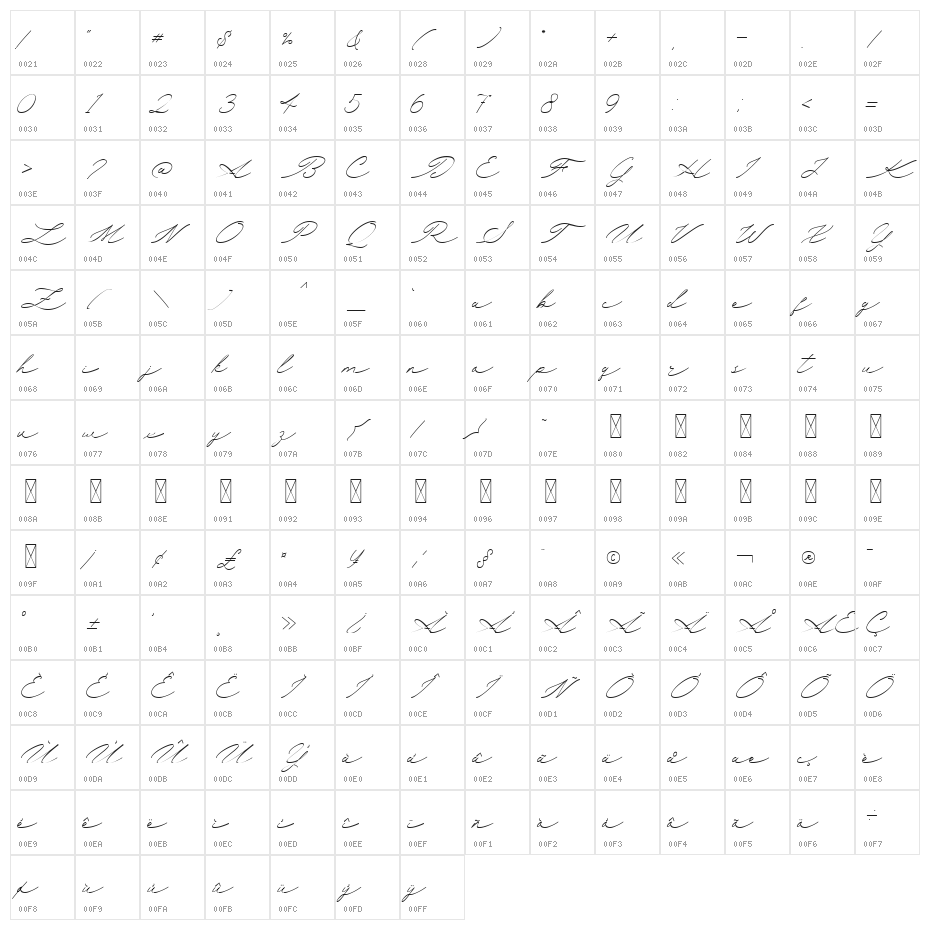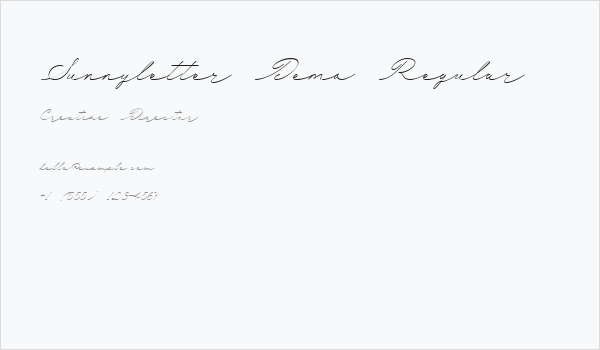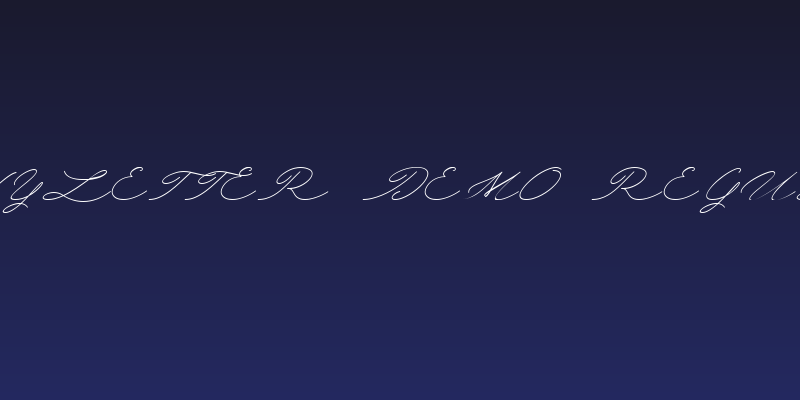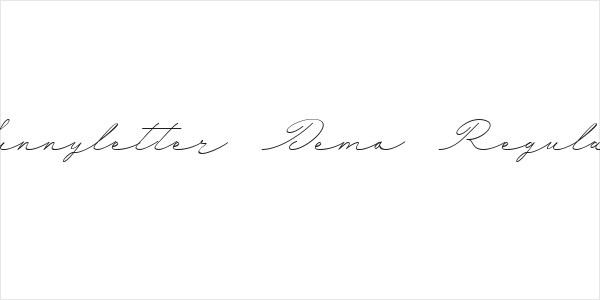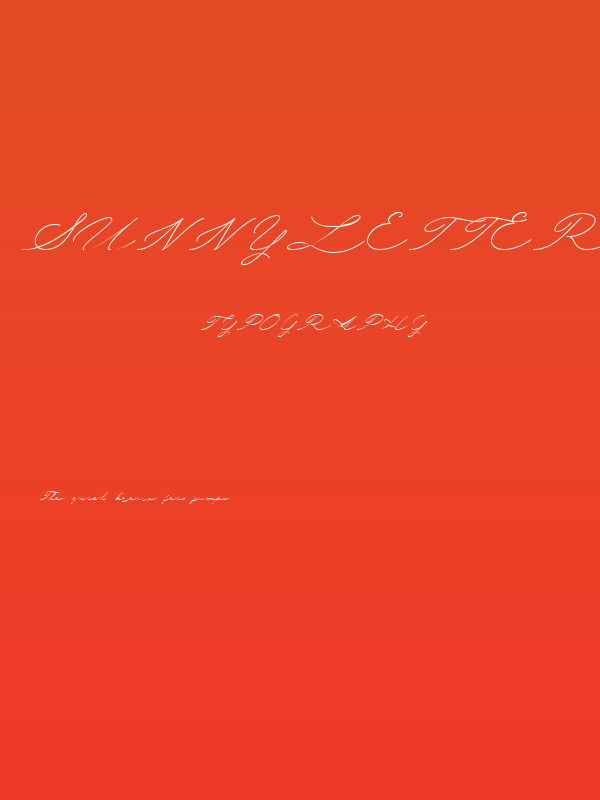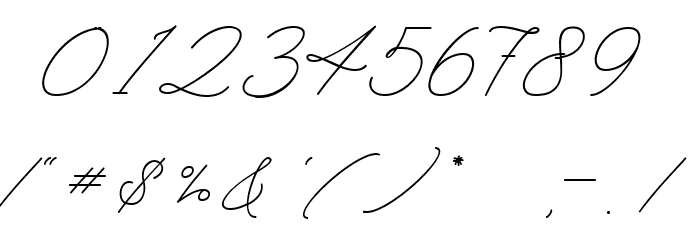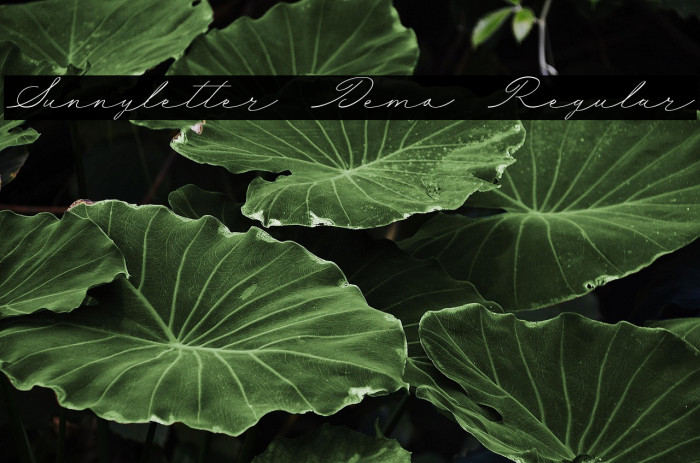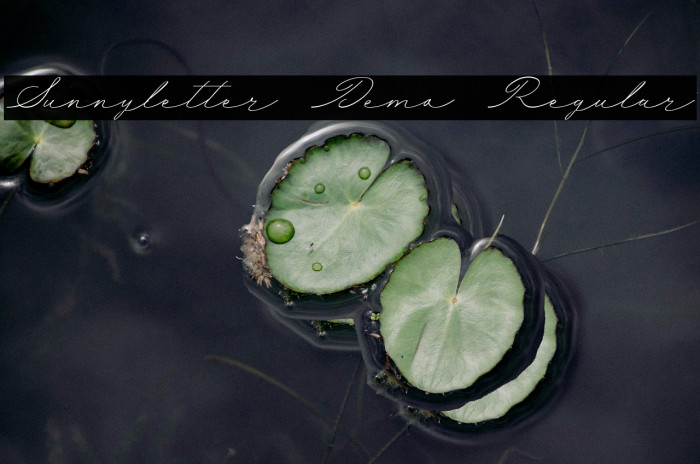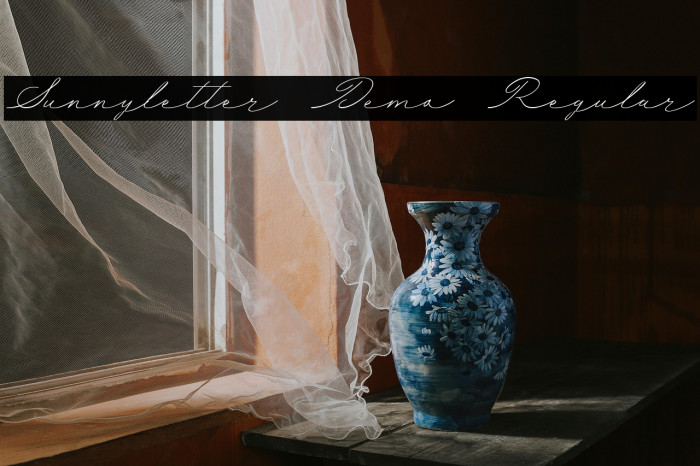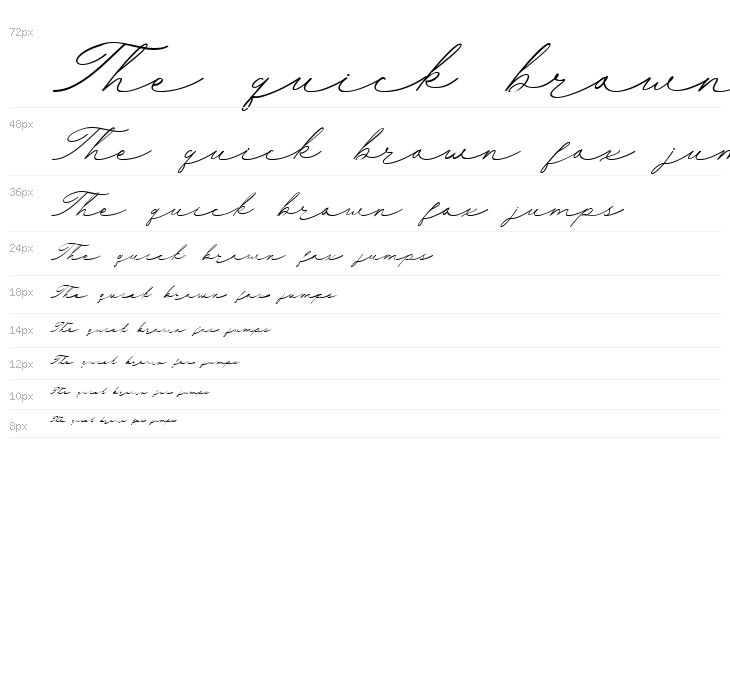
Sunnyletter Demo Regular Font
Sunnyletter Demo Regular Description
This elegant script font features a flowing, cursive style that mimics the fluidity of natural handwriting. The characters are connected, creating a seamless and sophisticated appearance. The strokes are thin and delicate, giving the font a light and airy feel. The uppercase letters are slightly larger and more ornate, while the lowercase letters maintain a consistent, graceful curve. The numerals and special characters are designed to complement the overall aesthetic, ensuring a cohesive look across all text. This font is perfect for adding a touch of elegance and refinement to any project.
| Overall Style | Elegant |
| Use Case | Logos, Invitations, Decorative text |
| Proposed Projects | Ideal for wedding invitations, elegant branding, personal stationery, and decorative quotes. |